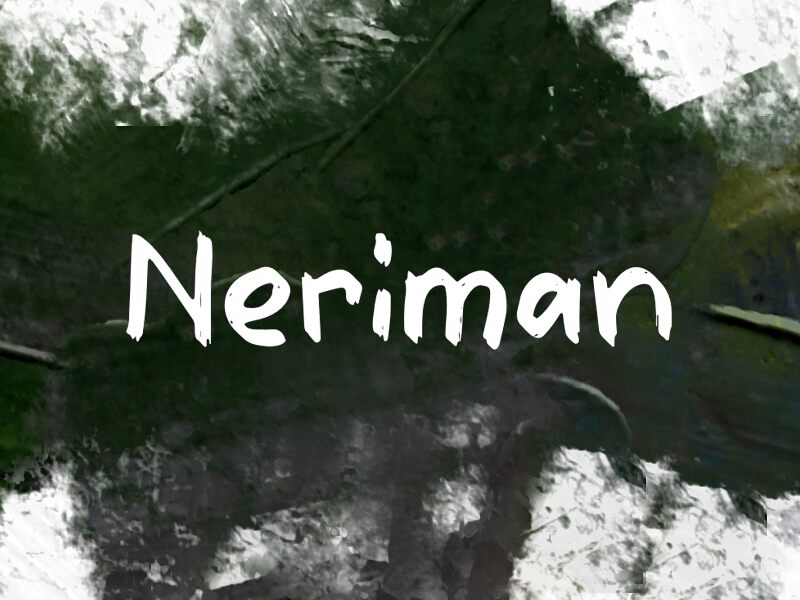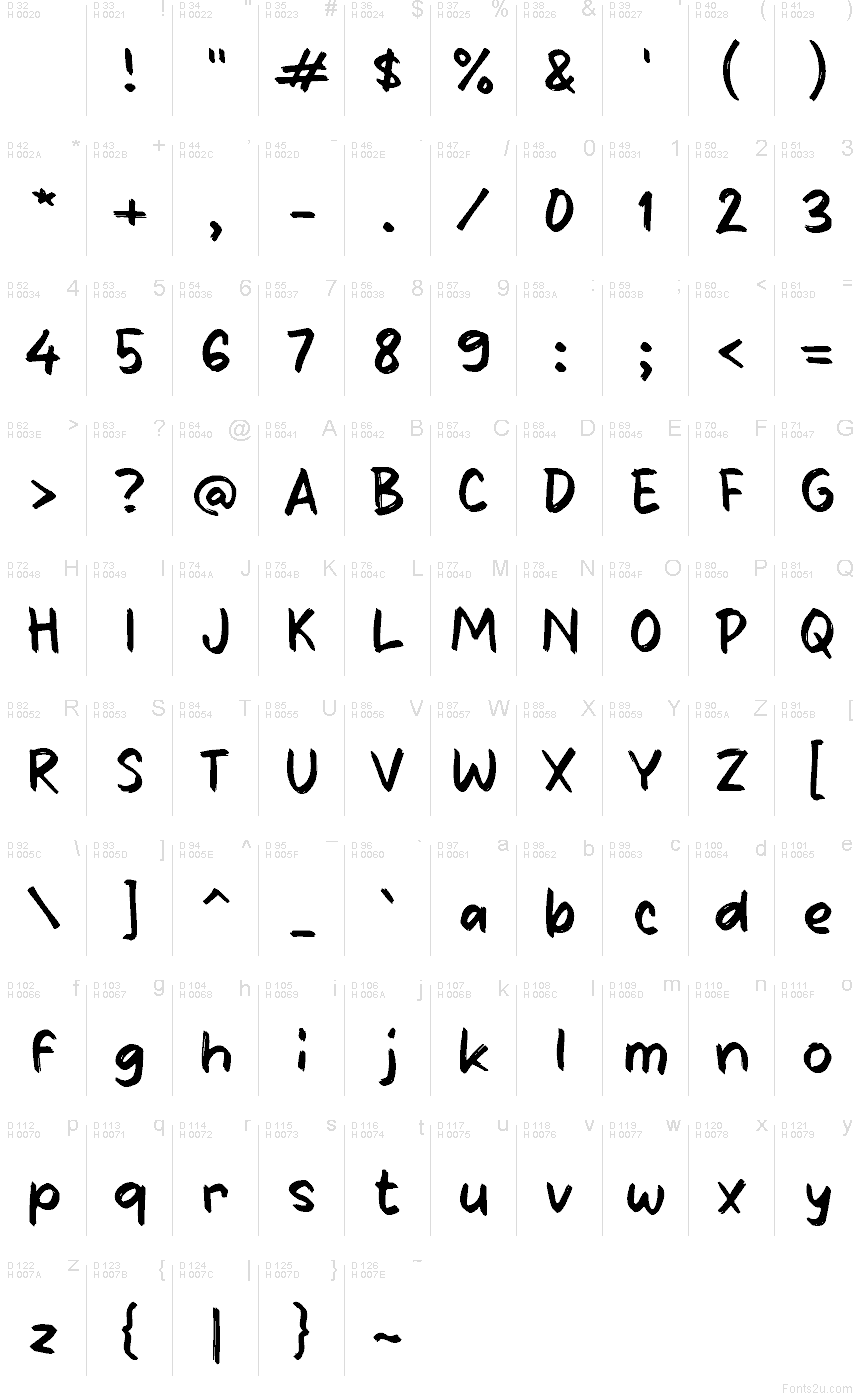
Neriman
Neriman font by wepfont.com is a free brush font that feels like fresh ink dragged across rough paper. The letters are bold, slightly wobbly, and full of grainy texture, giving every word a loose, hand-painted energy. It’s casual without being messy, with rounded forms that stay friendly even when the strokes get thick and inky.
Using Neriman, this free font shines on poster titles, handmade product labels, kids’ book covers, social media graphics, café boards, and craft packaging. Its chunky rhythm reads clearly at larger sizes, so don’t be afraid to scale it up and let the texture show. For balance, pair Neriman with a clean, neutral sans serif for smaller supporting text.